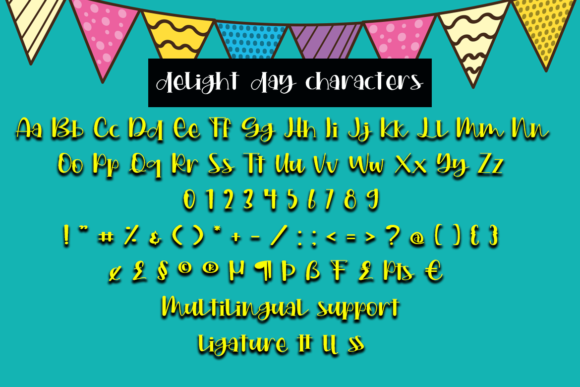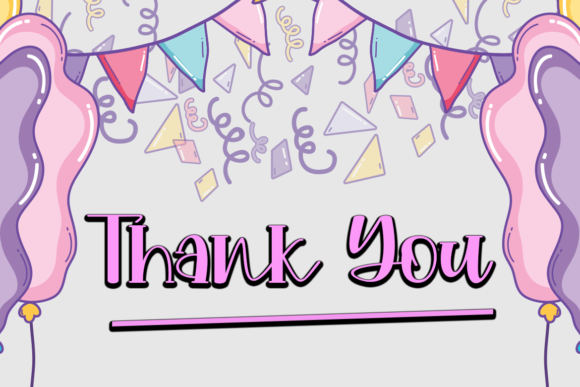
The Delight Day Font: A Quirky, Handwritten Gem for Creative Projects
I’ll never forget the design moment when I stumbled upon the Delight Day font. I was working on a whimsical craft project for a client who wanted a playful, yet authentic feel. As I scoured the internet for the perfect font, I found myself stuck in a sea of generic sans-serifs and overused script fonts. That’s when Delight Day caught my eye – a charming, handwritten font that embodied the fun, quirkiness, and authenticity I was looking for.
What I Love About Delight Day ✨
- ✅ Unique, handwritten feel that’s perfect for creative projects
- ✅ Wide range of applications, from crafting and DIY to branding and advertising
- ✅ Beautifully designed with a focus on detail and authenticity
- ⚠️ Limited availability of extended language support
- ⚠️ Some users may find the font too playful or informal for certain projects
Delight Day was designed with the intention of capturing the essence of handmade, authentic craftsmanship. The designer aimed to create a font that would bring a sense of quirkiness and playfulness to creative projects, while still maintaining a level of sophistication and legibility. The result is a beautiful, handwritten font that embodies the spirit of creativity and self-expression.
Q: What type of projects is Delight Day best suited for?
A: Delight Day is perfect for creative projects, such as crafting, DIY, branding, and advertising. Its playful, yet authentic feel makes it ideal for a wide range of applications.
Q: Is Delight Day a difficult font to read?
A: No, Delight Day is a highly legible font, even at smaller font sizes. Its clear, handwritten design makes it easy to read and understand, making it perfect for a wide range of applications.